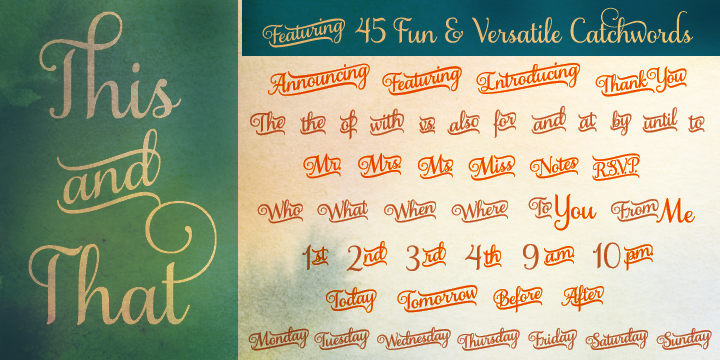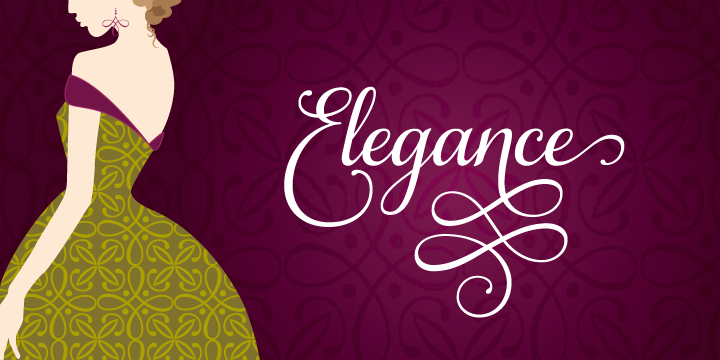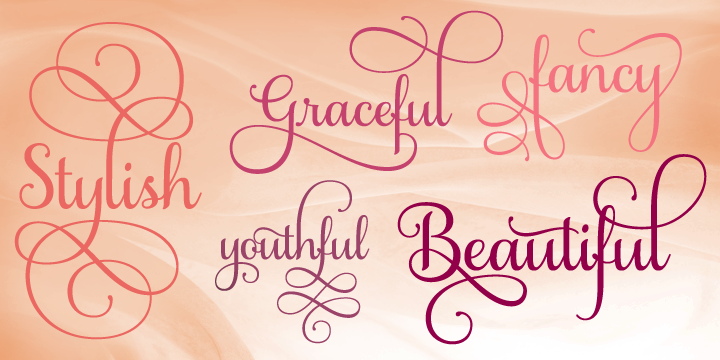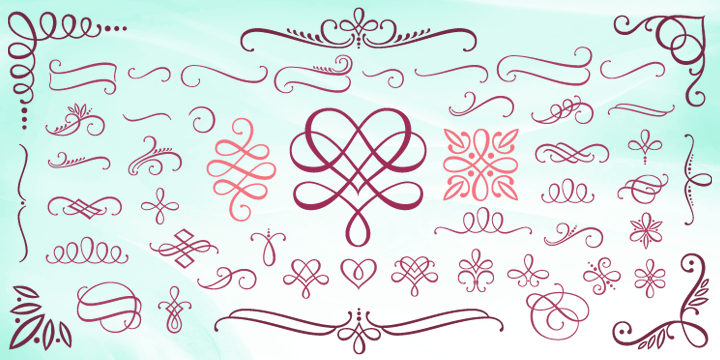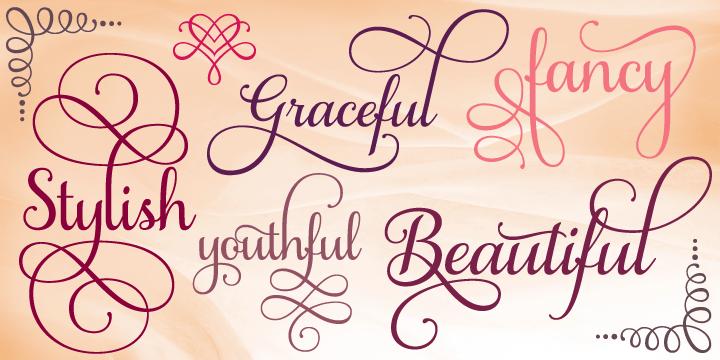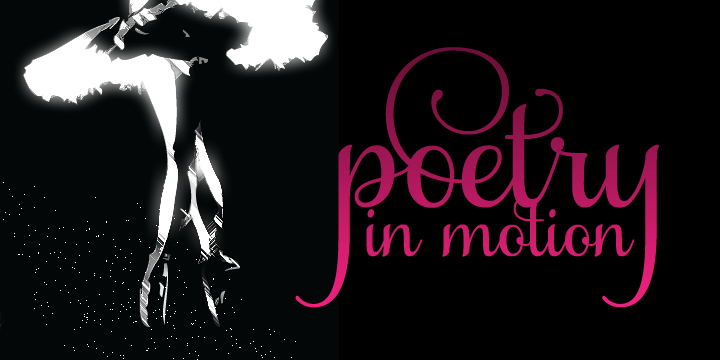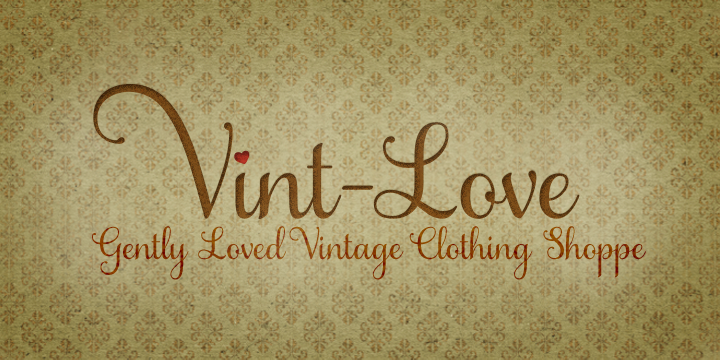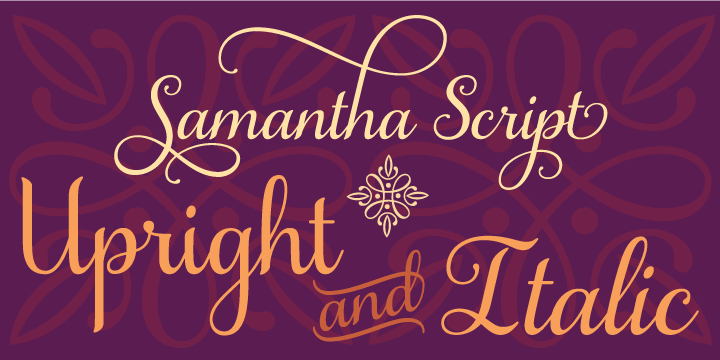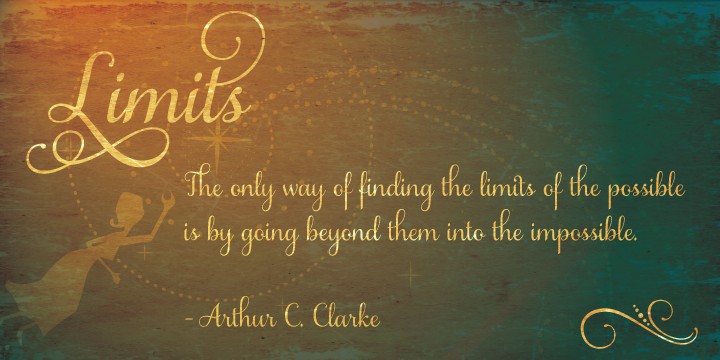
Designed by Laura Worthington, Samantha is a dingbat and script font family. This typeface has four styles and was published by Laura Worthington.
Samantha possesses a flowingly smooth elegance with the ability to take on many appearances, from simple styling to the fanciest of all flourishes with its 2700+ glyphs that take advantage of OpenType. Over 1100 alternate and swash letters feature ascenders and descenders that vary in length and complexity. Standard ligatures ensure that this font looks as perfect as possible and 20 discretionary ligatures enliven its style. Numerals are offered in their standard form, as well as an old style and a swash set too. The addition of 60 ornaments and 45 catchwords offer even more design possibilities.
Samantha
• Standard character set
• Swash variations
• Alternate Letterforms
• Discretionary ligatures
• Old Style numerals
• Swash numerals
• Ordinals
• Ornaments
• Catchwords
| Foundry | Laura Worthington |
| Styles | Script, Dingbat |
| Designer | Laura Worthington |